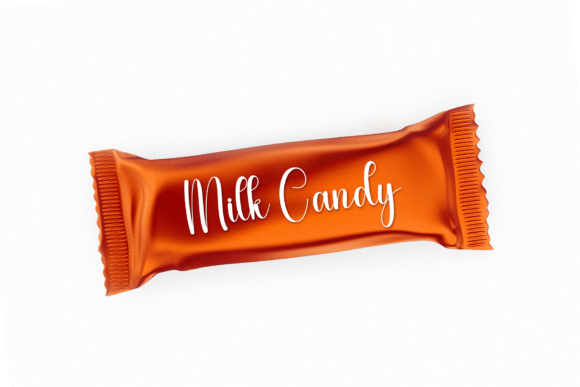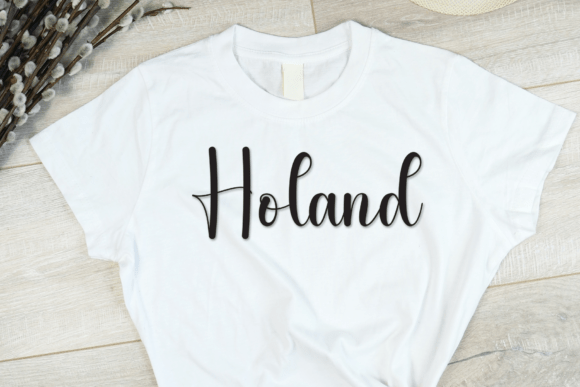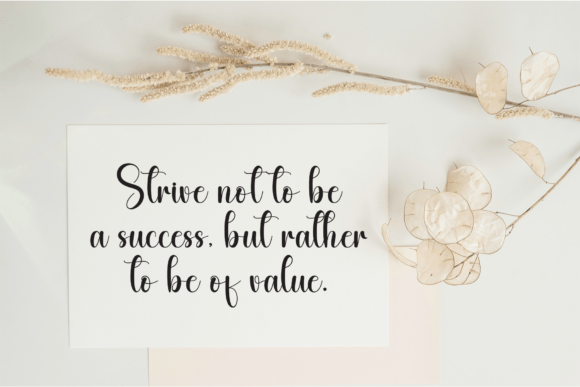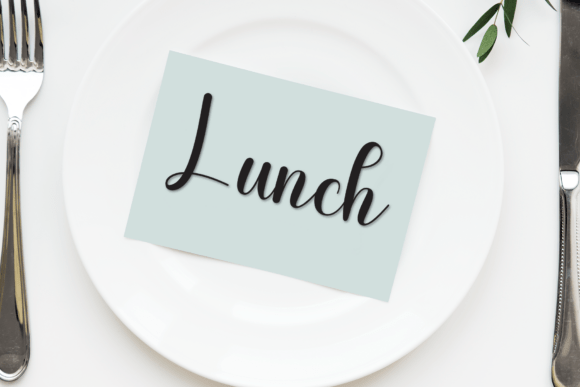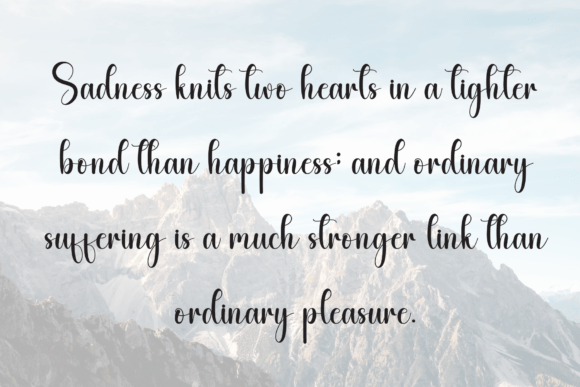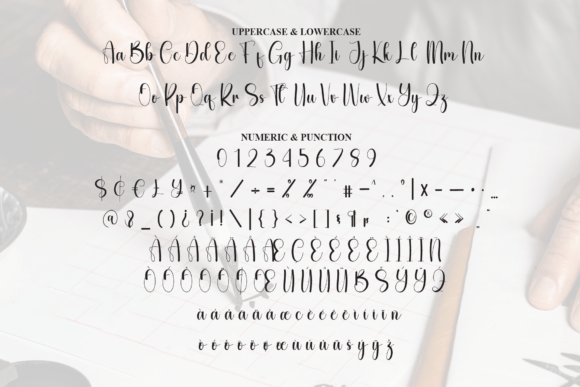
The Art of Elegant Expression: Unveiling Caligraphy Font
Have you ever stared at a blank canvas, waiting for inspiration to strike? For many designers, it’s those moments of creative stagnation that spark the most innovative ideas. And for those who crave a touch of sophistication in their designs, the introduction of Caligraphy Font is a game-changer. This stylish script font is designed to capture the essence of hand-painted calligraphy with a modern twist.
With its fluid brush strokes, dynamic curves, and expressive letterforms, Caligraphy Font adds a creative and elegant touch to any design. Whether you’re crafting logos, invitations, packaging, or social media graphics, this font delivers both visual impact and versatility. Its natural flow and vibrant character make it a valuable addition to any designer’s toolkit.
Caligraphy Font Key Features
- Unique Characteristics: Features elegant, cursive script with intricate flourishes, making it ideal for creating visually appealing and sophisticated designs.
Design Review: Caligraphy Font
As a designer, I have had the chance to work with a variety of fonts, and I must say that Caligraphy Font is quite an interesting choice. ✨ The font’s elegant and flowing lines give it a beautiful, handwritten feel that’s perfect for adding a touch of sophistication to your designs.
Here are some of the things that work well with Caligraphy Font:
- ✨ Unique and elegant feel: The font’s flowing lines and varied letterforms give it a distinctive and eye-catching appearance.
- ✨ Versatility: Caligraphy Font can be used for a wide range of design projects, from wedding invitations to editorial designs.
- ✨ Readability: Despite its decorative feel, the font is surprisingly easy to read, making it a great choice for body text.
- ⚠️ Limited font sizes: Caligraphy Font may not be the best choice for very large or very small font sizes, as it can become difficult to read at these extremes.
- ⚠️ Not suitable for bold text: The font’s delicate feel makes it unsuitable for use in bold or all-caps text, which can be overwhelming.
Overall, I would give Caligraphy Font 4 out of 5 stars. While it’s not perfect, its unique feel and versatility make it a great addition to any designer’s toolkit. With a bit of caution and creative application, you can get the most out of this beautiful font.
Caligraphy Font: A Practical Application Guide
For the best results, use Caligraphy Font for titles, headings, and other emphasis text.
Use it for wedding invitations, birthday cards, and other special occasion designs.
Experiment with different font sizes and colors to create a unique and eye-catching look.
Alternatives to Caligraphy Font for Designers
Lobster Font is a popular, cursive script font that is often used for titles, headings, and quotes. It’s ideal for creating a romantic, elegant look and is commonly used in wedding invitations, fashion designs, and luxury branding.
Compared to Caligraphy Font, Lobster Font is more casual and modern, making it a great choice for designers who want to add a touch of sophistication without being too formal.
Pacifico Font is a beautiful, cursive script font that is inspired by the Pacific Ocean. It’s perfect for creating a relaxed, beachy vibe and is commonly used in travel, food, and lifestyle designs.
Compared to Caligraphy Font, Pacifico Font is more laid-back and casual, making it a great choice for designers who want to create a friendly and approachable tone.
While calligraphy fonts can be beautiful and eye-catching, they are often not suitable for body text due to their ornate and decorative nature. Body text requires a font that is clear, readable, and easy to scan, which is not typically the case with calligraphy fonts. However, you can use a calligraphy font for titles and headings to add a touch of elegance and sophistication to your design.
What is the recommended font size for using a calligraphy font?
The recommended font size for using a calligraphy font will depend on the specific font and the context in which it